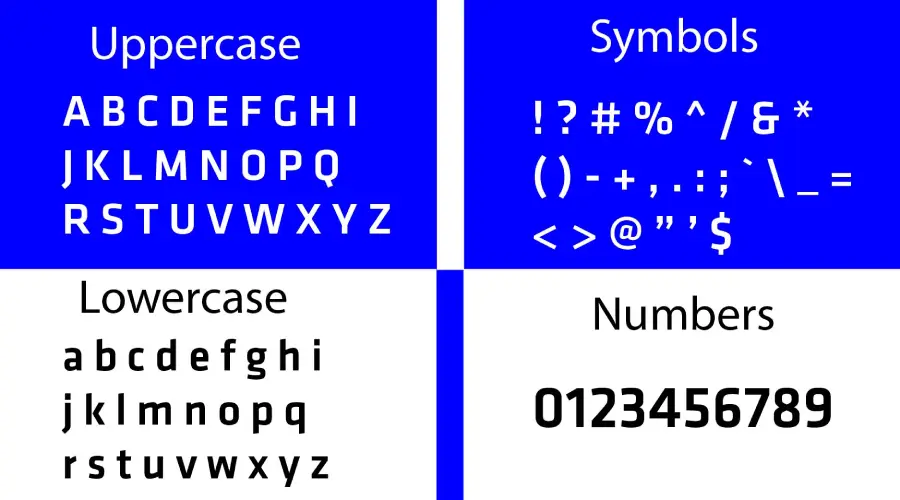
Klavika Font
Klavika font is a sans-serif typeface that combines simplicity with versatility. Klavika font was designed by Eric Olson and published by Process Type Foundry in 2004. Eric Olson also helped design the Facebook logo. Geometric and humanist-type design traditions inspired it. This font features a wide range of weights, styles, and widths.
Klavika has four weights: Klavika light, Klavika regular, Klavika medium, and Klavika bold, with matching italics for each. It also supports various languages, including Latin, Cyrillic, and Greek scripts. However, this font isn’t free. So, you will need to purchase a license to use it.
This simple but versatile font can be used for headlines, logos, text, or display. Many famous and influential brands and organizations, including Facebook, NBC, The New York Times, and The Obama Foundation, have used this font. This font can be used to create a solid and memorable identity, as well as a positive and professional impression on your audience.
Klavika is an excellent choice for any project that requires a versatile and modern typeface. This font adapts to different contexts and moods. It can be used for various purposes, including branding, editorial, web, signage, etc. Therefore, many famous brands and organizations use this font. This font will help you create unique and original designs with a high level of control and quality. So what are you waiting for? Check out this font now in our font generator and download it now!